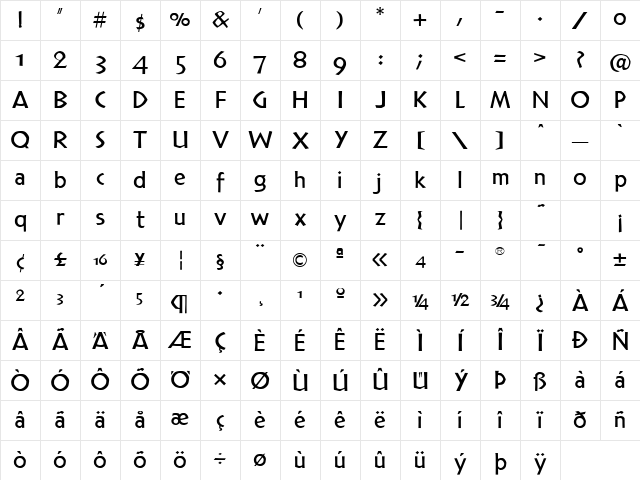
Complete TFNeueneulndLightOsf Normal glyph index. Displaying only characters natively supported by TFNeueneulndLightOsf Normal font.
TFNeueneulndLightOsf is a composed and adaptable typeface that performs quietly and consistently across a wide range of design contexts. Its slender proportions lend an understated elegance to any composition.